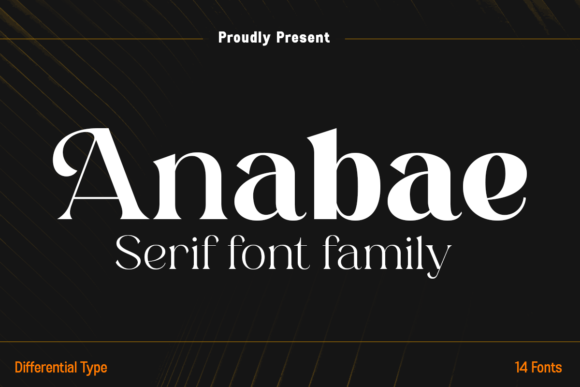
The Designer’s Delight: Anabae Font
I’ll never forget the time I was working on a project for a client who wanted a bold, eye-catching font to make their brand stand out. I spent hours scouring the internet for the perfect font, but nothing seemed quite right. That was until I stumbled upon Anabae Font. This bold, stylish, and thick lettered serif font has been a game-changer for my design work, and I’m excited to share it with you.
So, what do I love about Anabae Font? 🤔 Here are a few things that make it a standout:
- ✨ Easy to read: Despite being a bold font, Anabae has a simple morphology that makes it very easy to read, even at smaller sizes.
- ✅ Versatile: Anabae is perfect for displaying in any project you create, from logos and branding to headings and titles.
- 💡 PUA encoded: Anabae is PUA encoded, which means you can access all of the glyphs and swashes with ease.
Of course, no font is perfect, and Anabae has a few small quirks:
- ⚠️ Limited use in body text: While Anabae is easy to read, its bold nature makes it less suitable for body text. It’s best used for headings and titles.
- 🤔 Some users may find it too bold: If you’re looking for a more subtle font, Anabae may not be the best choice.
Anabae Font was designed with the goal of creating a bold, stylish, and easy-to-read font that’s perfect for display purposes. The designer drew inspiration from classic serif fonts, combined with modern elements to create a unique and versatile font.
| Q: What is Anabae Font? | Anabae Font is a bold, stylish, and thick lettered serif font. |
| Q: Is Anabae Font easy to read? | Yes, Anabae Font has a simple morphology that makes it very easy to read, even at smaller sizes. |
| Q: Can I use Anabae Font for body text? | While Anabae Font is easy to read, its bold nature makes it less suitable for body text. It’s best used for headings and titles. |
| Q: Is Anabae Font PUA encoded? | Yes, Anabae Font is PUA encoded, which means you can access all of the glyphs and swashes with ease. |